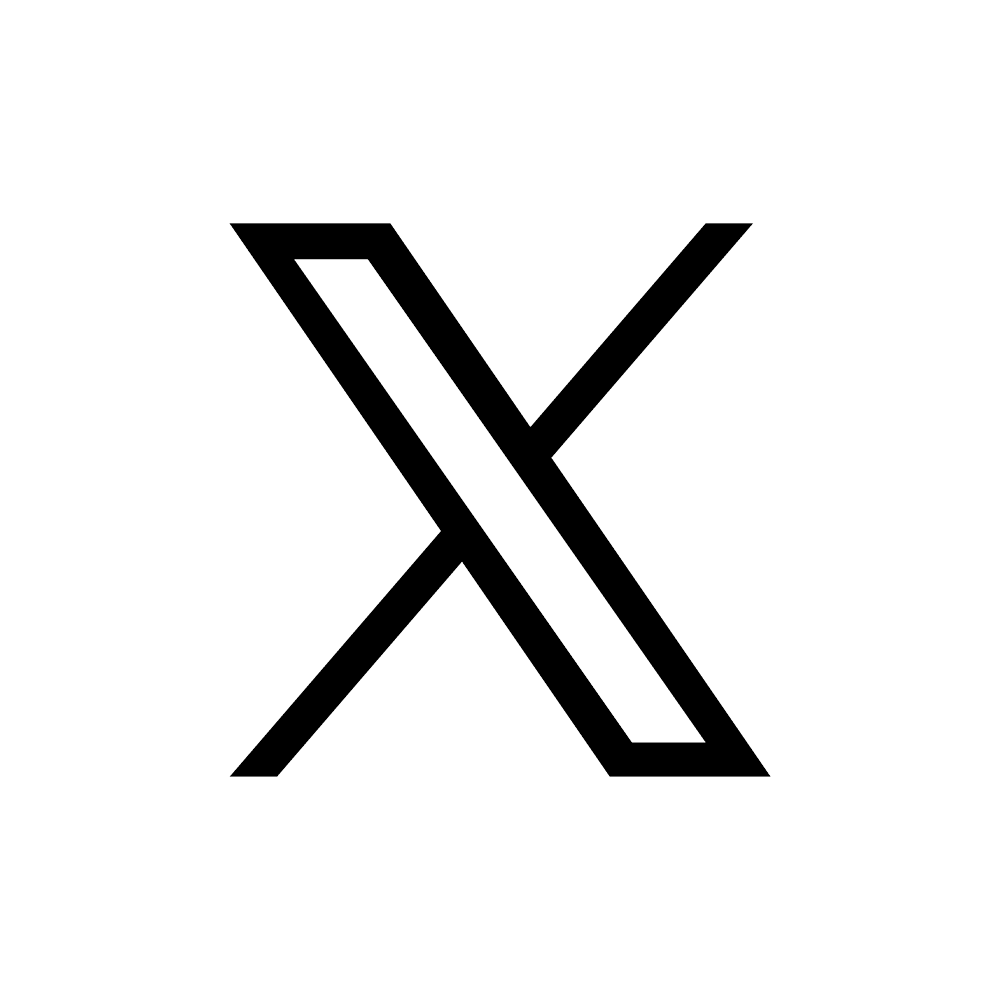
X Corp. Font
LogoX Corp. is an American technology company that owns the social networking service Twitter (rebranded to X) and plans to use it as a base for other offerings.
The X logo was recreated into a font called X Company by GGBotNet. The font is licenced as SIL Open Font License which means it's also free to use commercially.